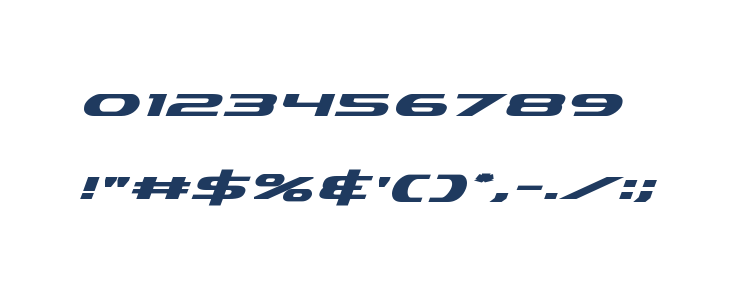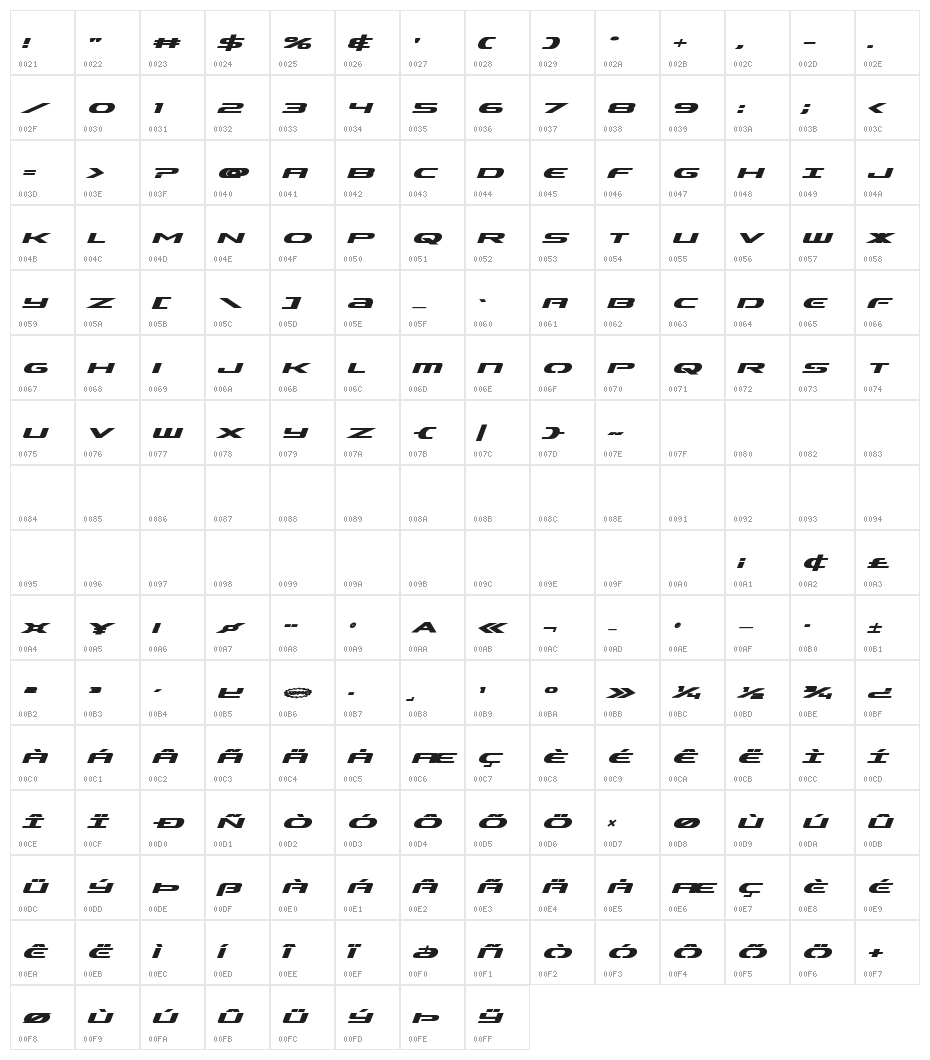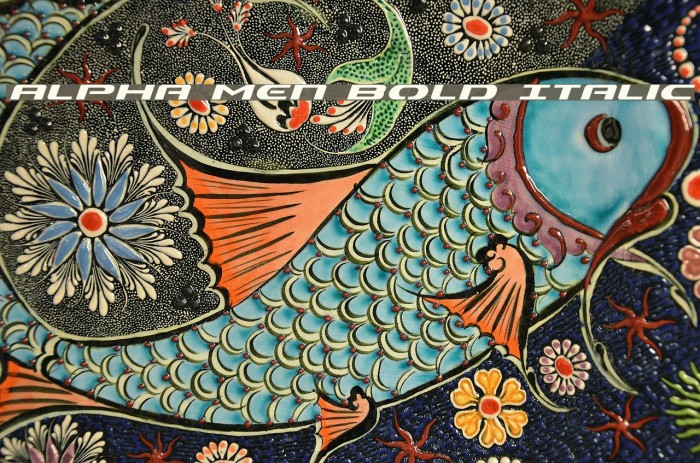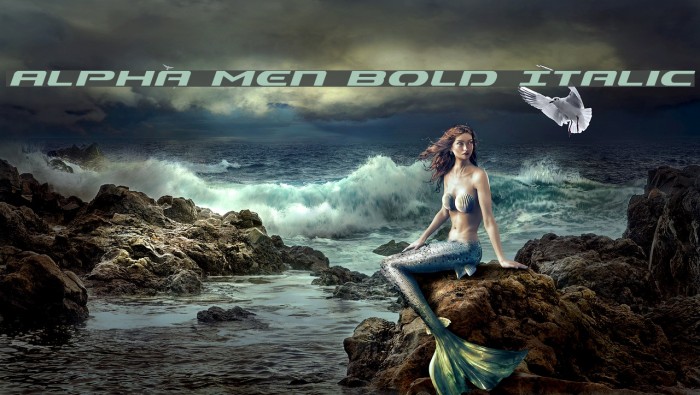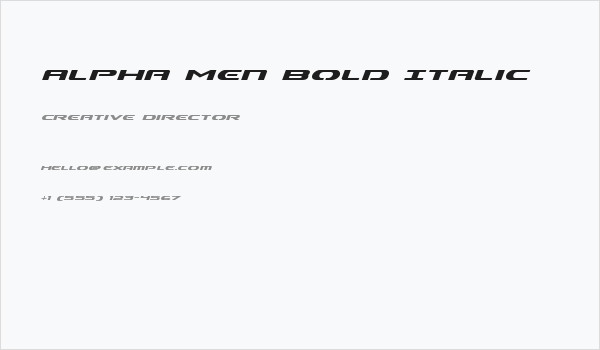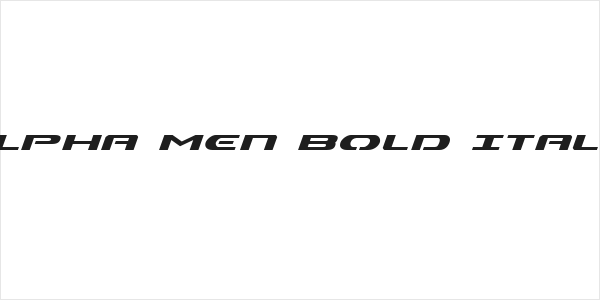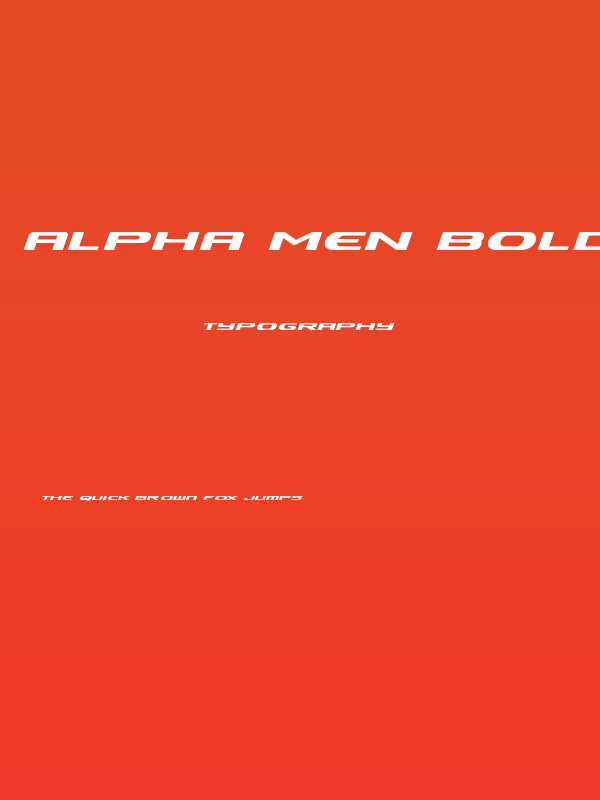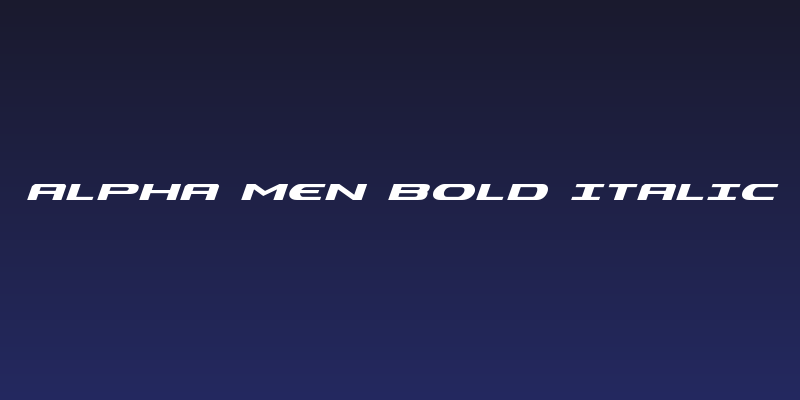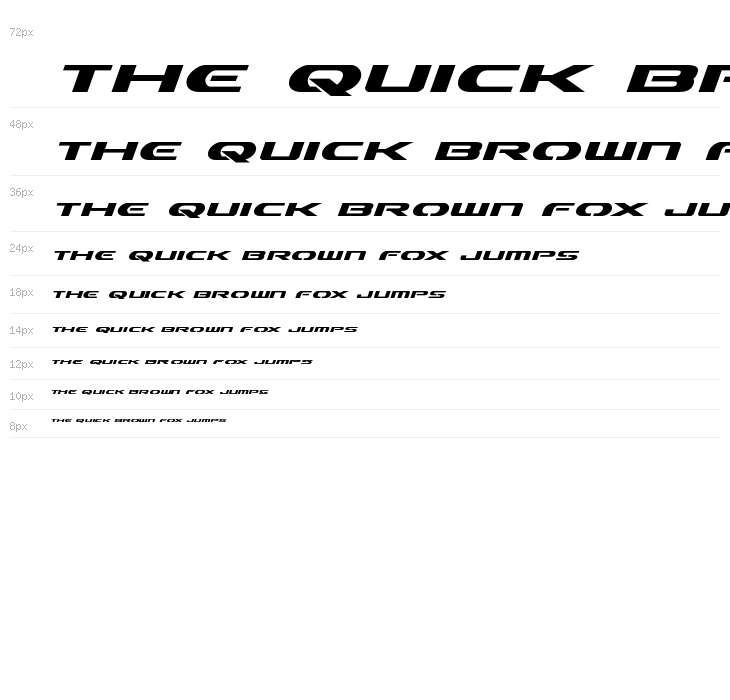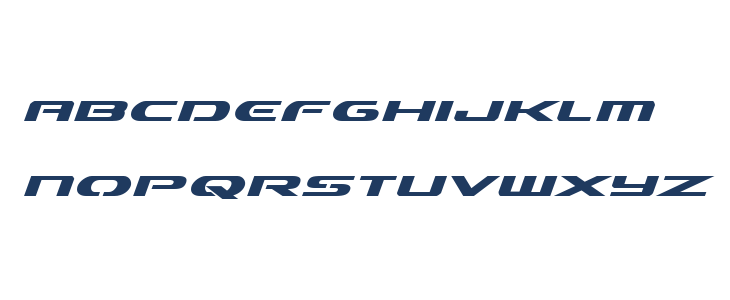
Alpha Men Bold Italic Font
Alpha Men Bold Italic Description
This font features a bold and italicized style with a futuristic and dynamic appearance. The characters are slanted forward, giving a sense of motion and speed. The strokes are thick and consistent, providing a strong visual impact. The design includes sharp angles and clean lines, making it suitable for modern and tech-oriented themes. The uppercase and lowercase letters maintain a uniform style, while the numerals and special characters complement the overall aesthetic. This font is ideal for projects that require a bold statement and a contemporary look.
| Proposed Projects | Ideal for tech branding, sports team logos, video game titles, and dynamic posters. |